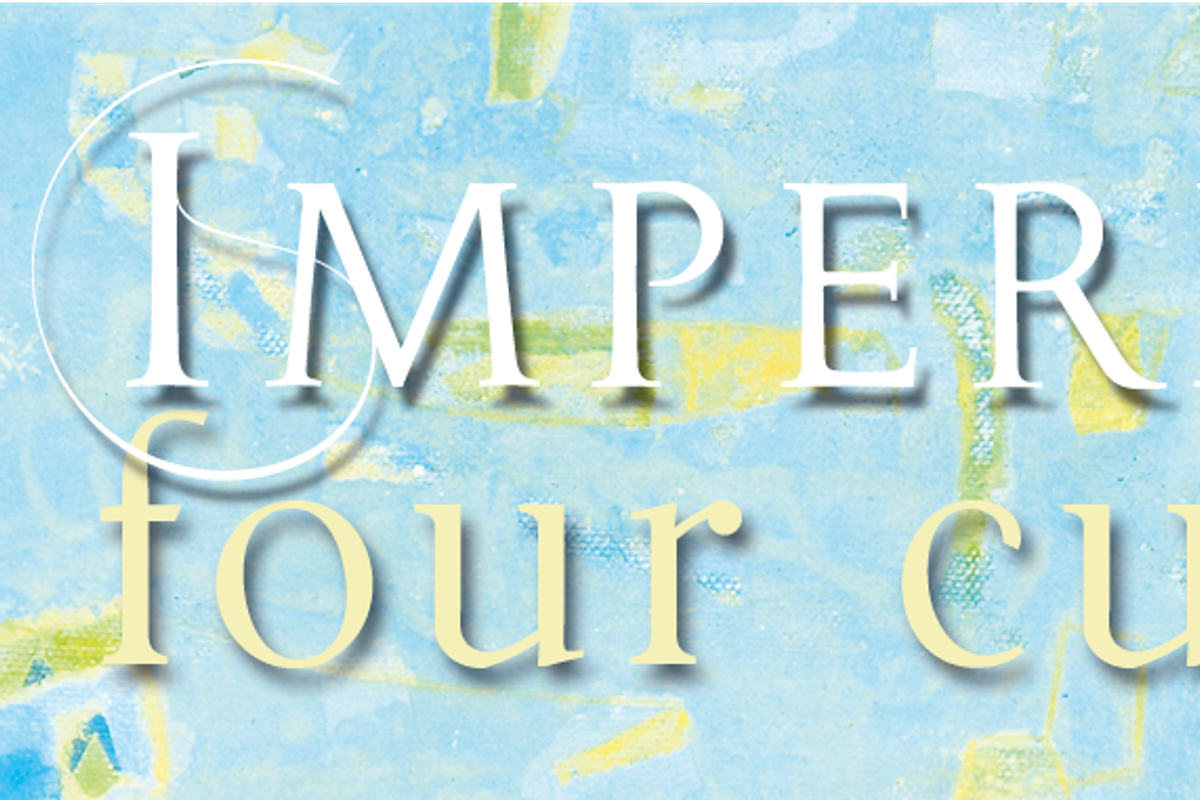
Imperia
Imperia is a display serif font inspired by the inscription on the Trajan Column. It features elegant, curly details and includes both uppercase and lowercase letters, as well as small caps for added versatility.